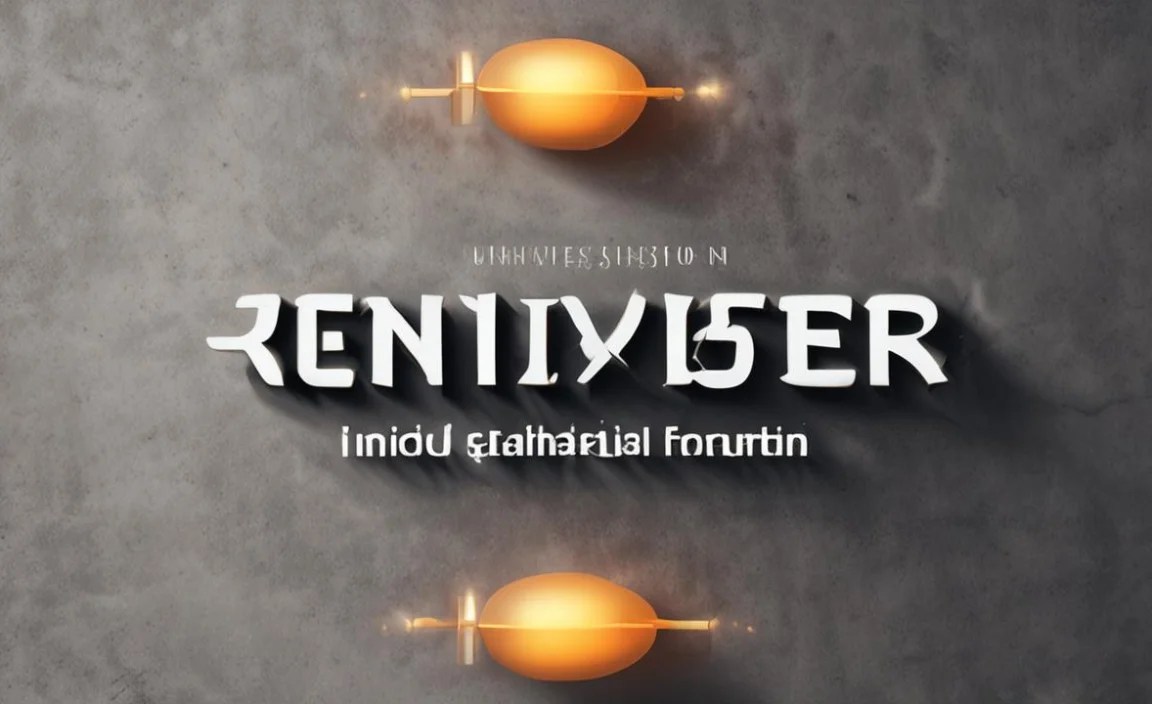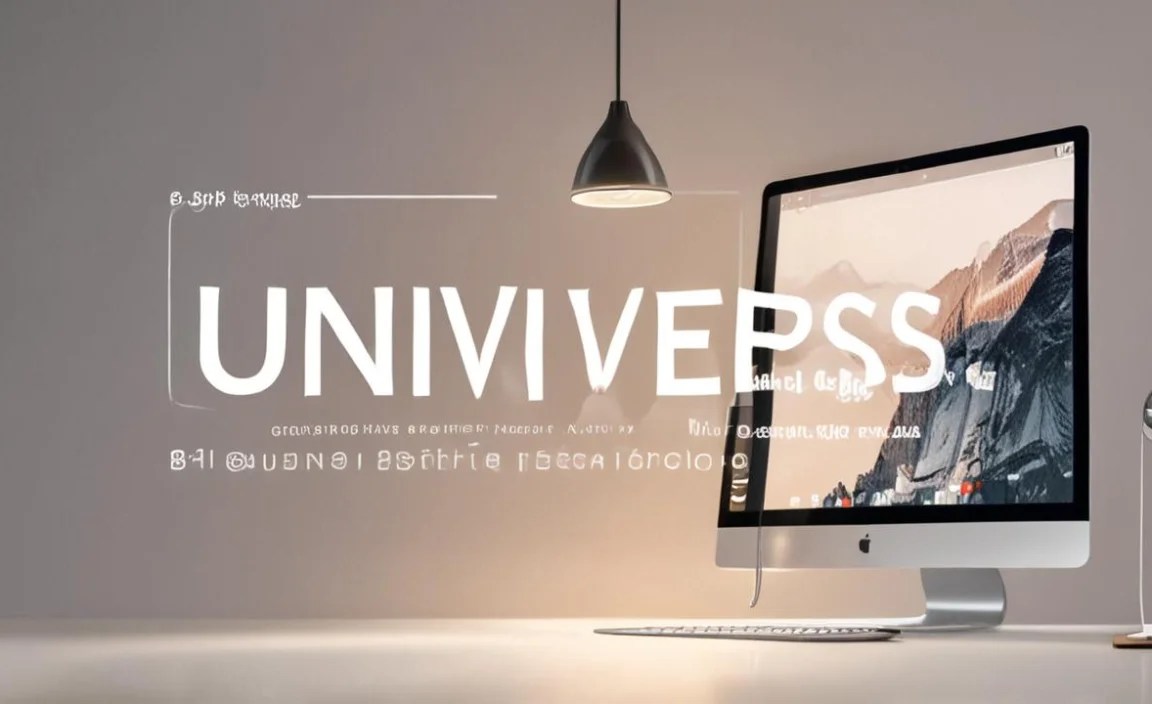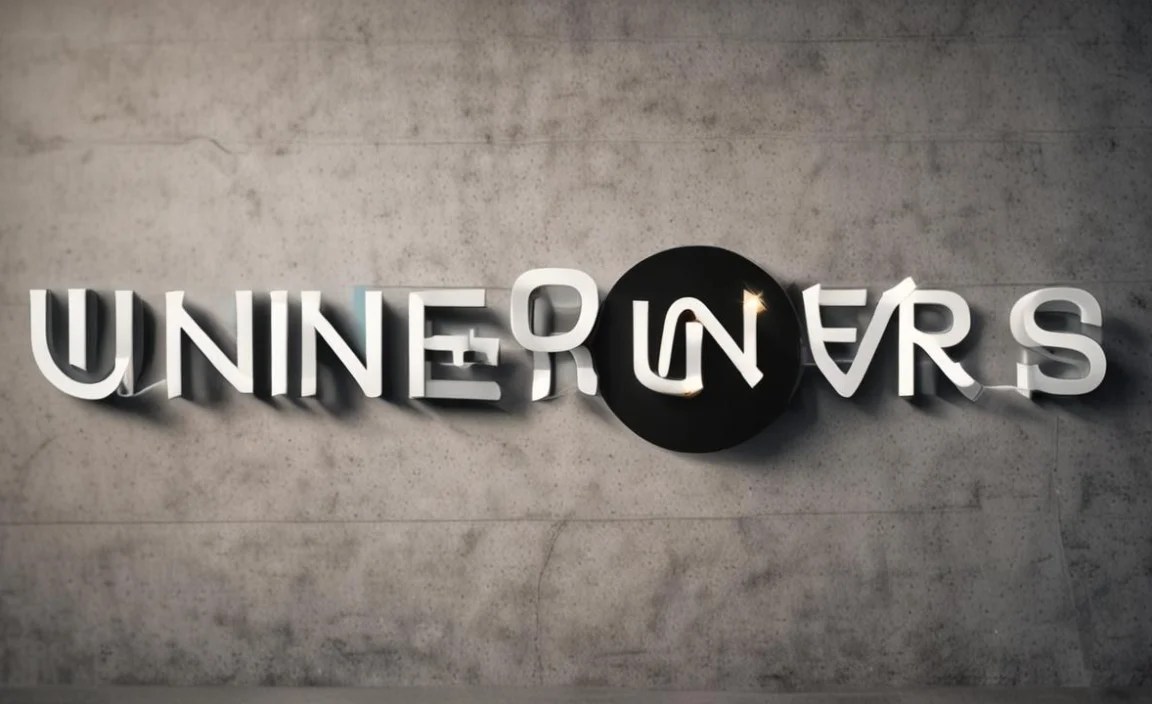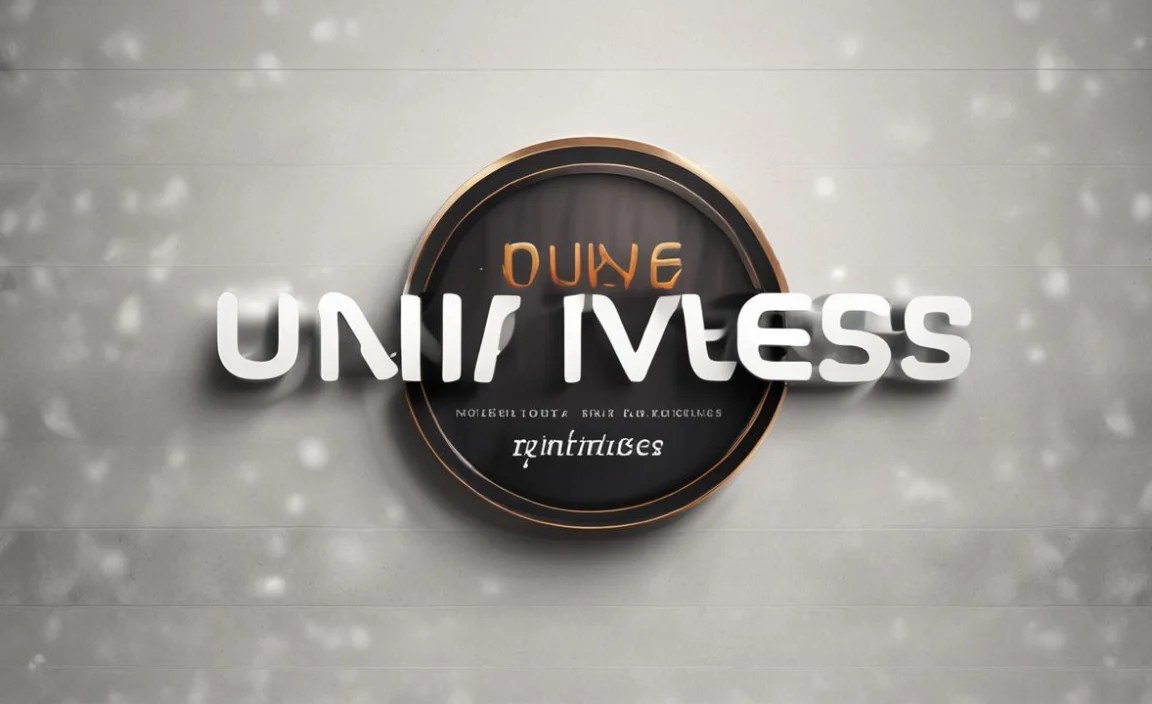
Univers font is a classic sans-serif typeface celebrated for its clean lines and versatile design. Adrian Frutiger designed it in 1957. Univers has become a staple in the design industry due to its functionality and modern appearance. Its wide range of weights and styles makes it suitable for various applications, from corporate branding to signage.
| Name | Univers |
| Designer | Adrian Frutiger |
| Type | Geometric Sans-serif |
Univers Font Family Includes
- Univers 39 Thin Ultra Condensed
- Univers 47 Light Condensed
- Univers 49 Light Ultra Condensed
- Univers 53 Extended
- Univers 55 Regular
- Univers 57 Condensed
- Univers 59 Ultra Condensed
- Univers 63 Extended Bold
- Univers 65 Bold
- Univers 67 Bold Condensed
- Univers 73 Black Extended
- Univers 75 Black
- Univers 83 Black Extended Oblique
- Univers 85 Black Oblique
- Univers 93 Extra Black Extended
- Univers 95 Extra Black Oblique
Where Univers Font Is in Use
Univers enjoys wide usage in various design contexts. Its clean and modern look makes it a favorite for numerous applications. Notable uses include:
- Corporate branding
- Print advertisements
- Website design
- Signage and wayfinding
- User interfaces
- Product packaging
- Editorial design
- Government and public sector documents
2. Why Do Designers Love Univers?
Designers love Univers for its clean, modern, and highly readable design, making it ideal for various applications, from branding to signage.
3. What Are The Future Trends For The Univers Font?
Future trends for Univers include increased use in digital and user interface design. Its timeless appeal ensures its continued popularity in modern and dynamic design projects.
4. When Did The Univers Come Into Existence?
Adrian Frutiger created Univers in 1957, aiming for a neutral and versatile typeface.
5. What Free Font Resembles Univers?
Many consider “Arial” a close free alternative to Univers, which offers a similar clean and modern style.
6. How Many Fonts Are In The Univers Family?
The Univers font family includes a wide variety of styles and weights, from Thin to Black. Each has an oblique counterpart and condensed and extended versions, totaling over 10 styles.
7. What Are The Different Versions Of Univers?
The Univers font family includes styles like Thin, Light, Regular, Bold, Black, Condensed, and Extended. Each is available in regular and oblique versions and variations like Ultra Condensed and Ultra Black Extended.